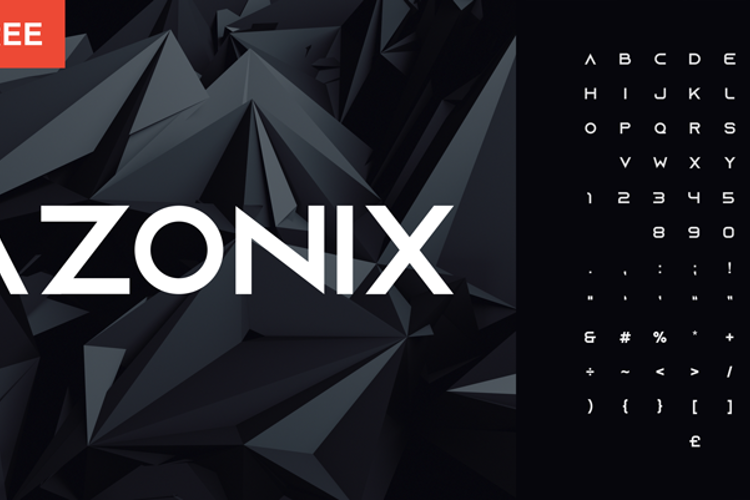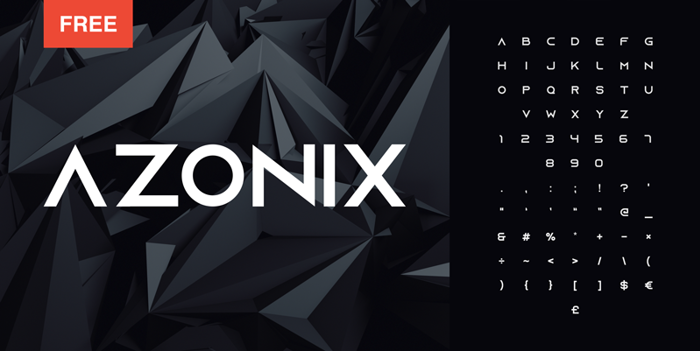
Azonix Font
About Azonix Font
More info from mixofx
Azonix is a modern sans-serif typeface. This typeface consists of bold geometric upper case letters, numbers and punctuation (symbols). Enjoy the free font!